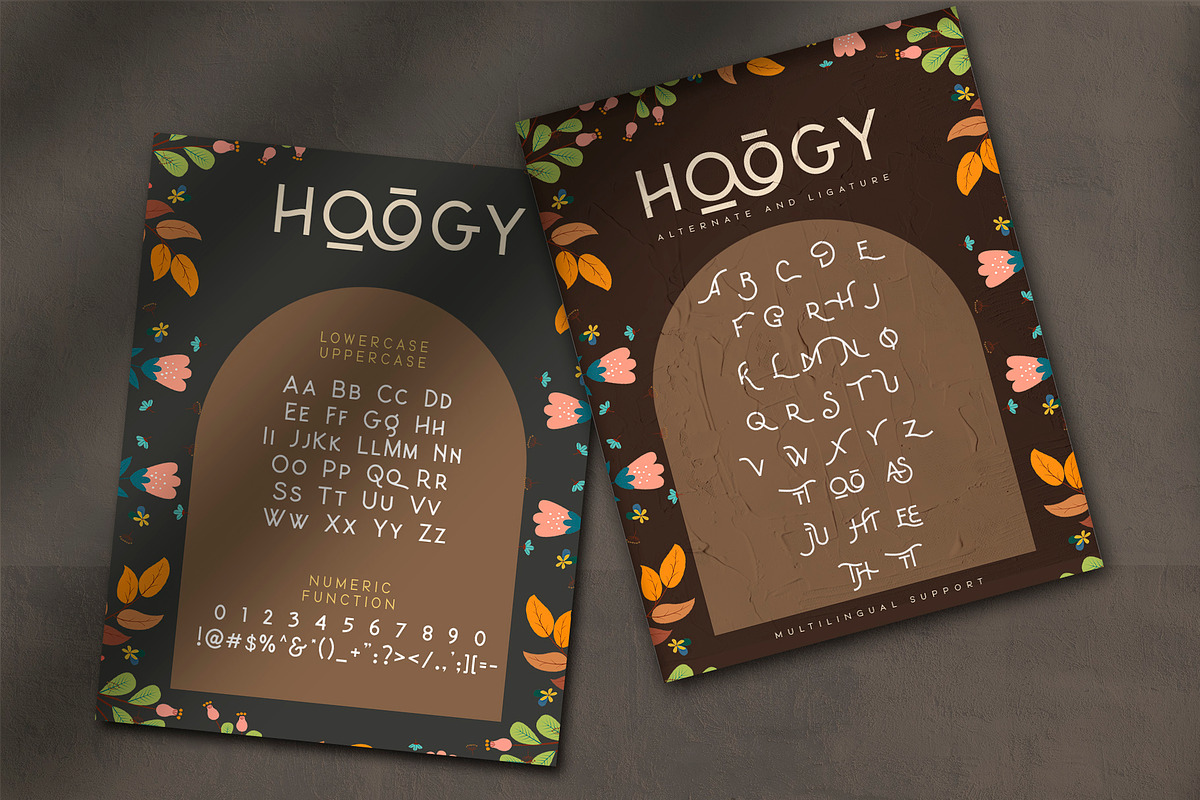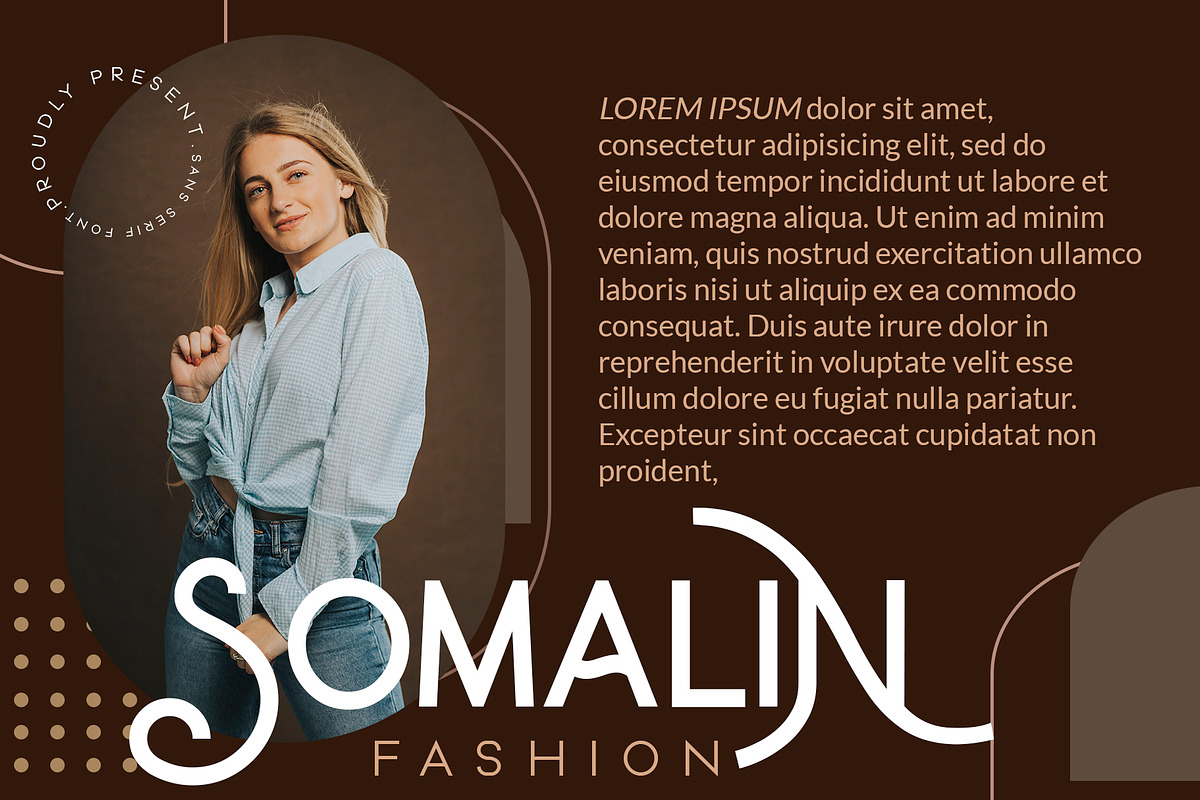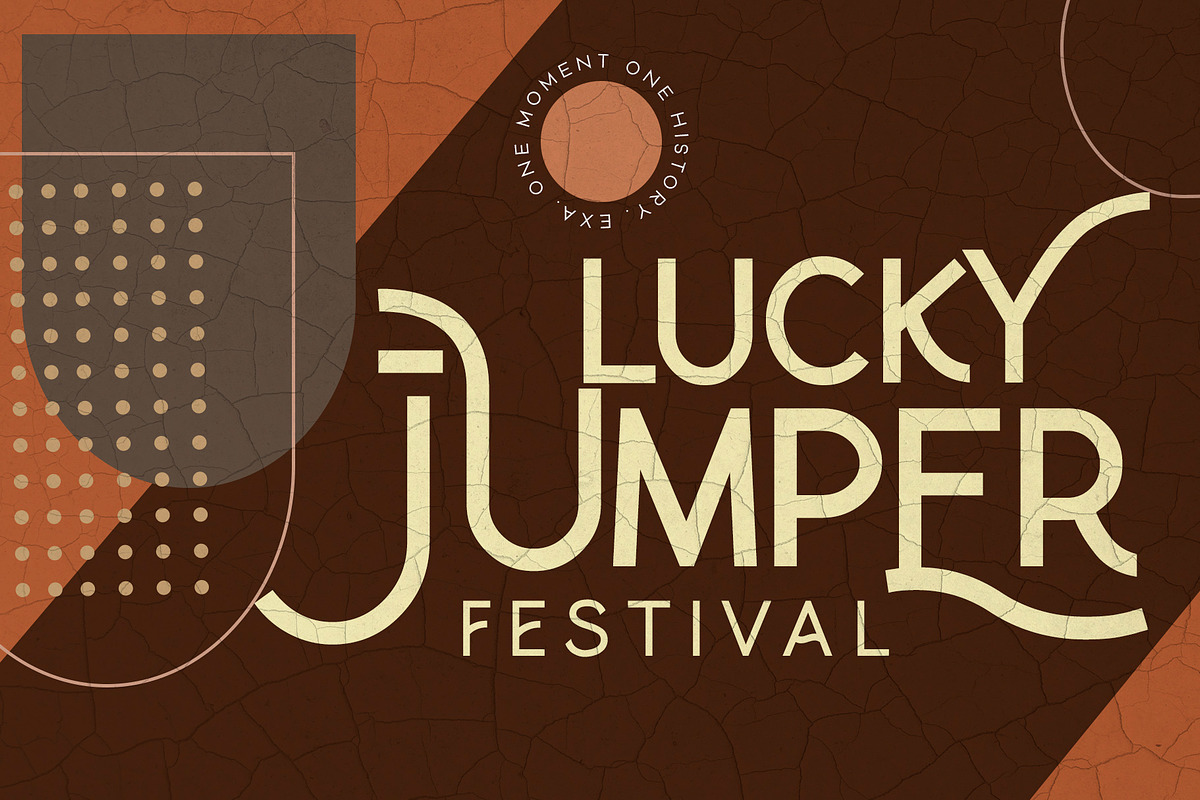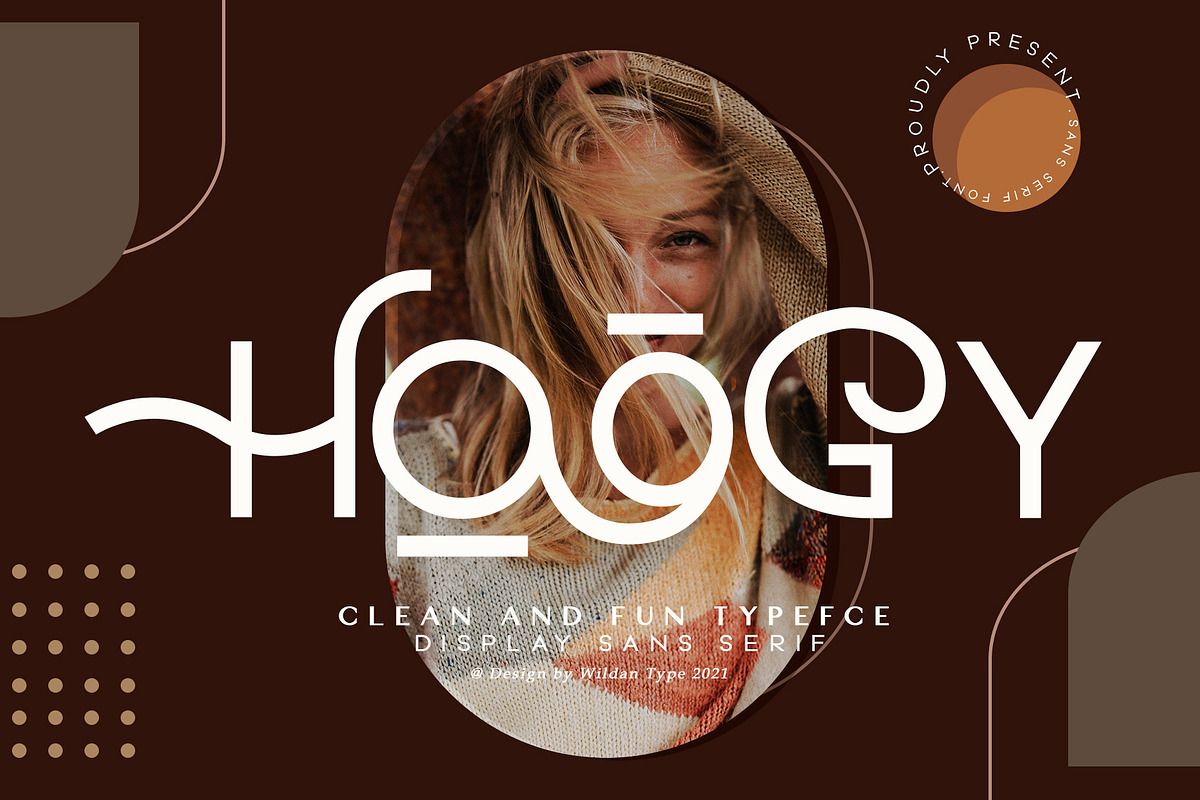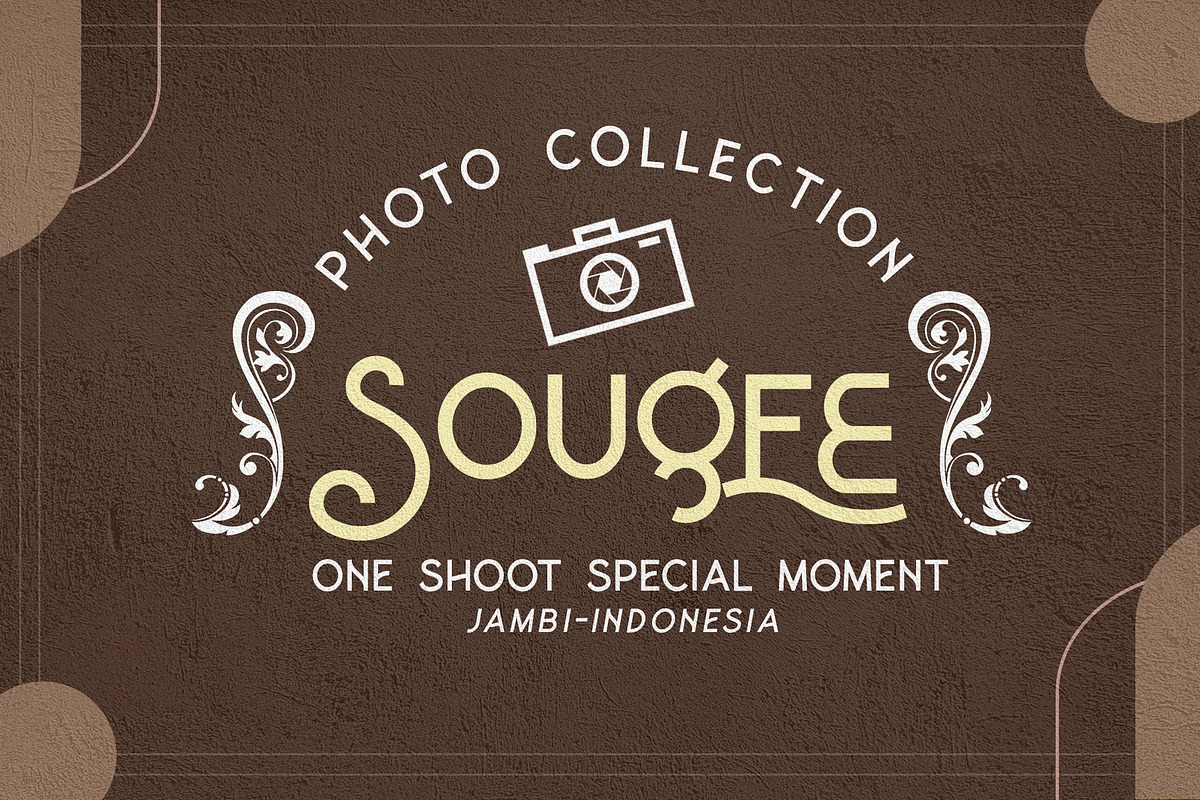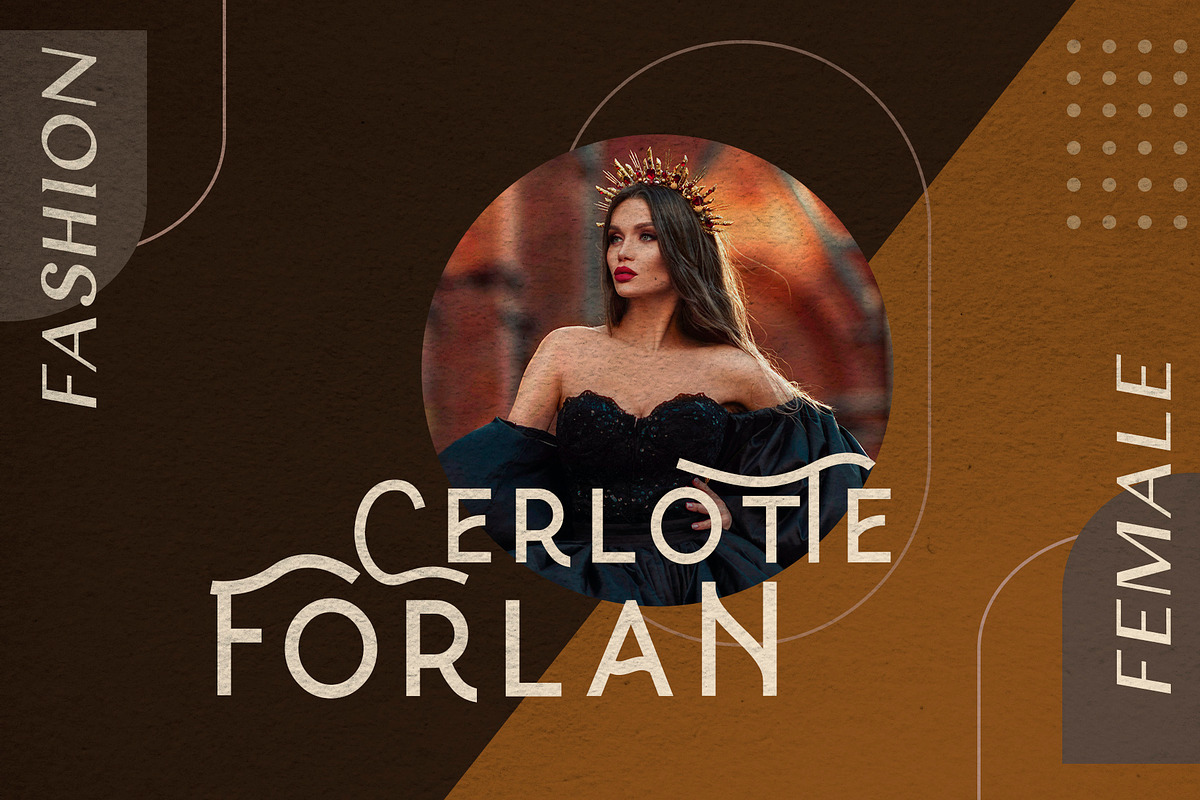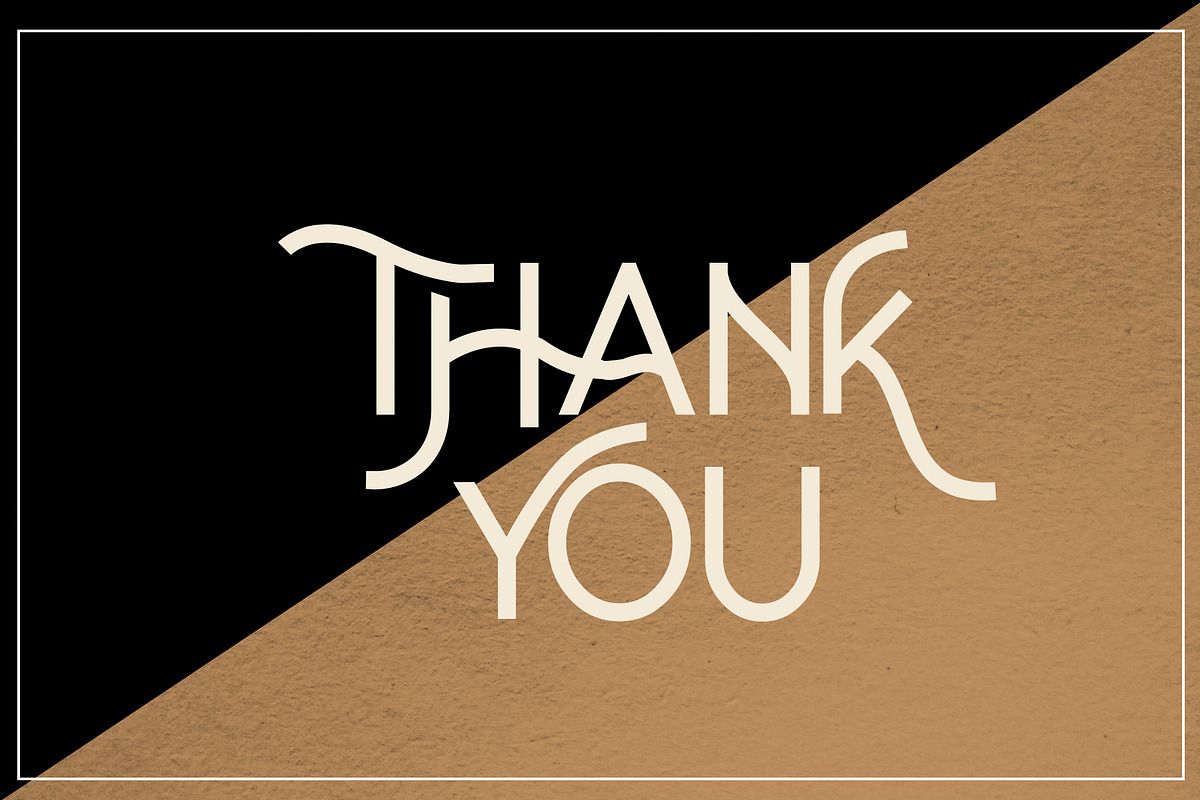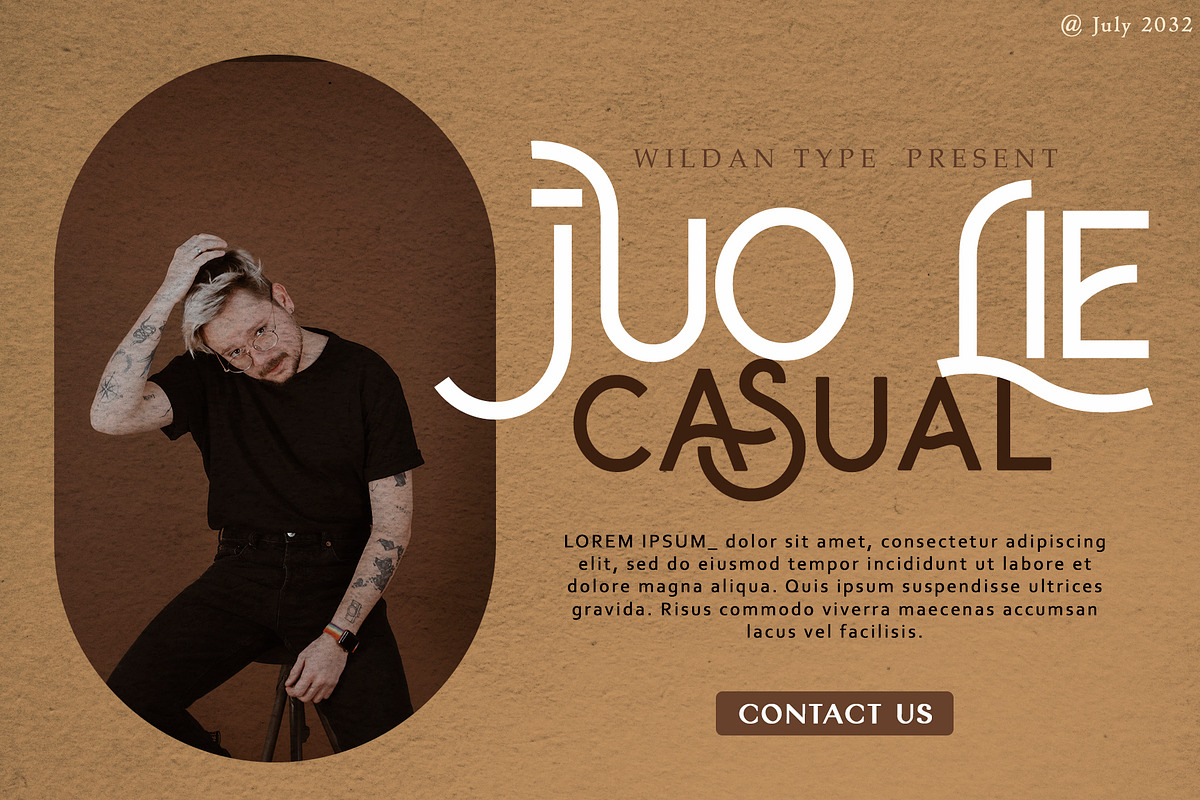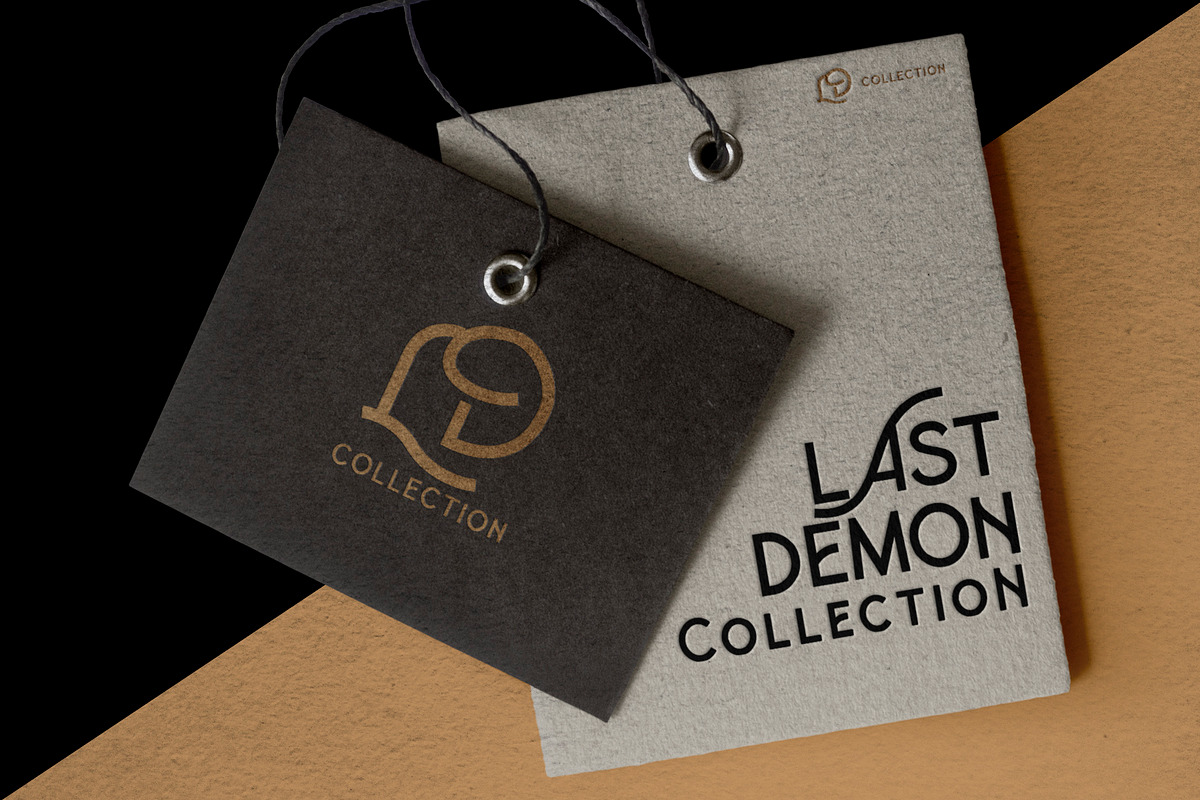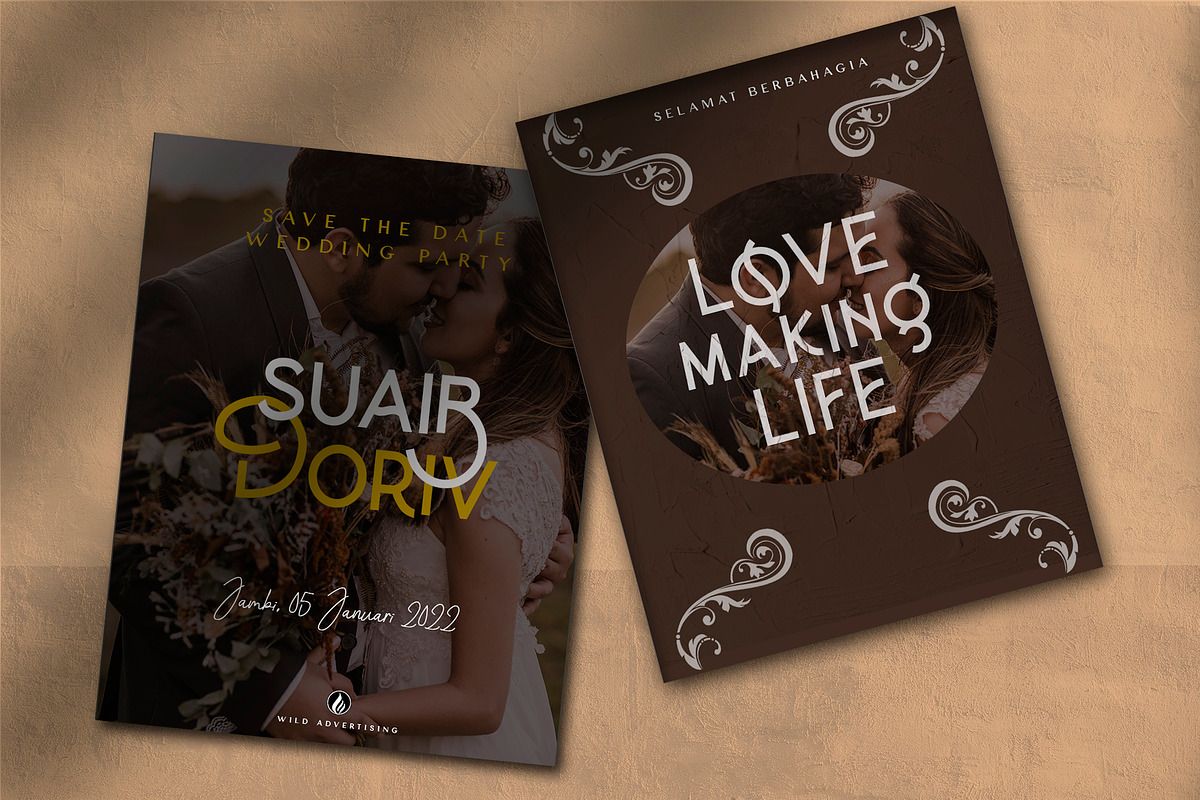
Hoogy
Introducing new typeface! Hoogy- A modern sans serif with beautiful swash. It has unic construction for the future style. Hoogy Font look clean, luxury, unic, elegant but still has funny taste. Perfectly used for product presentation, elegant logo design, packaging or invitation cards or heading text.
Features Two style/ Numbers & Punctuation / Extensive Language Support/ligature and alternate